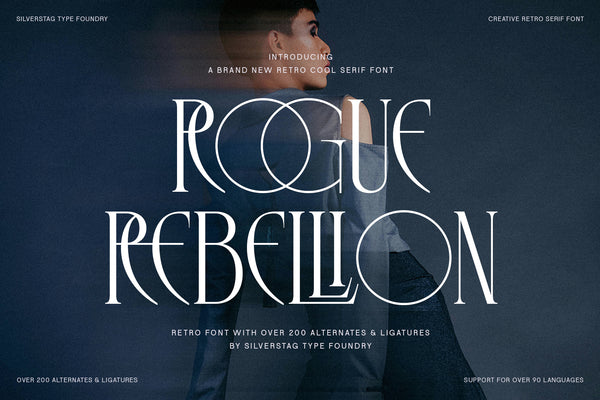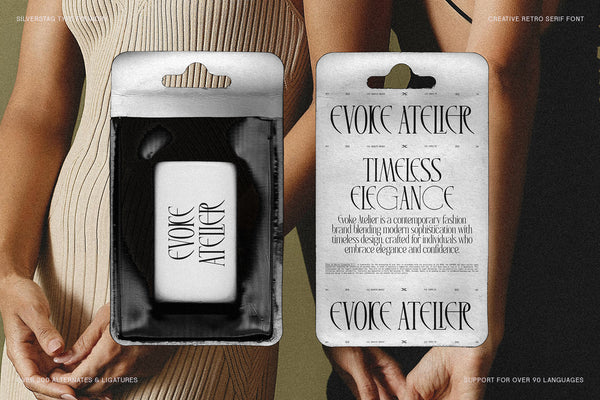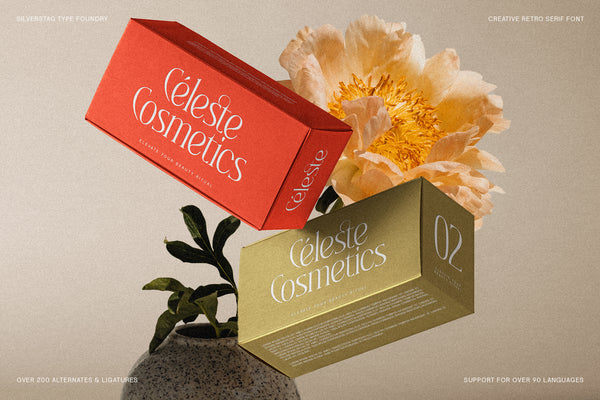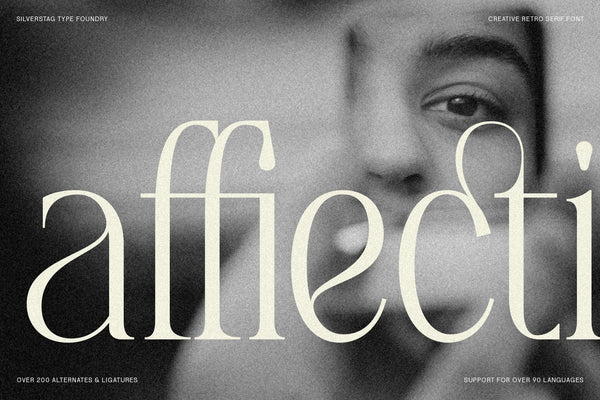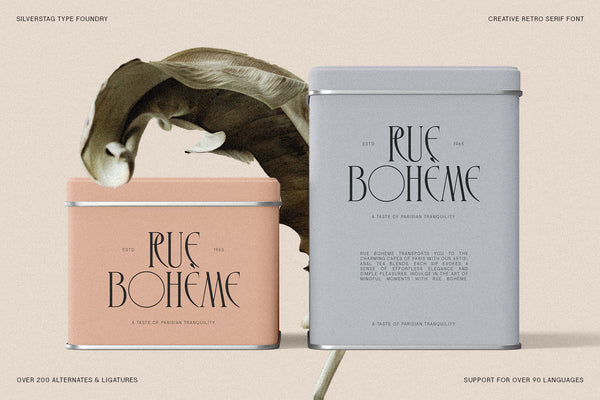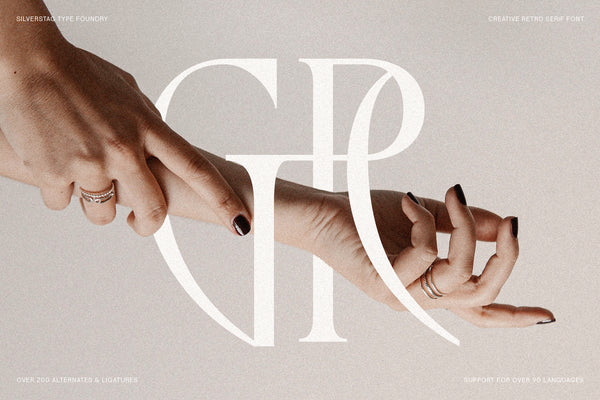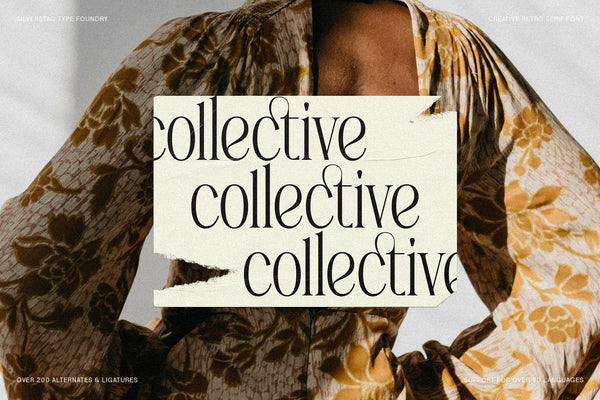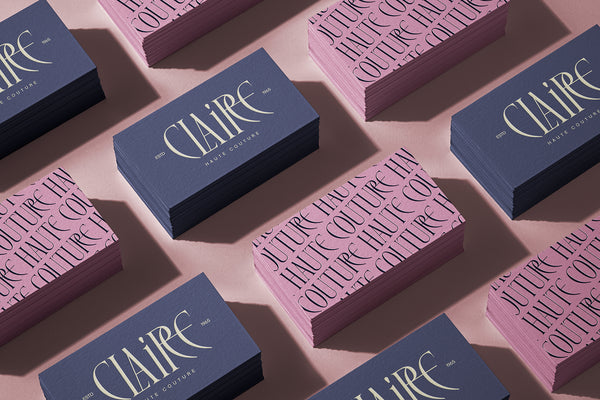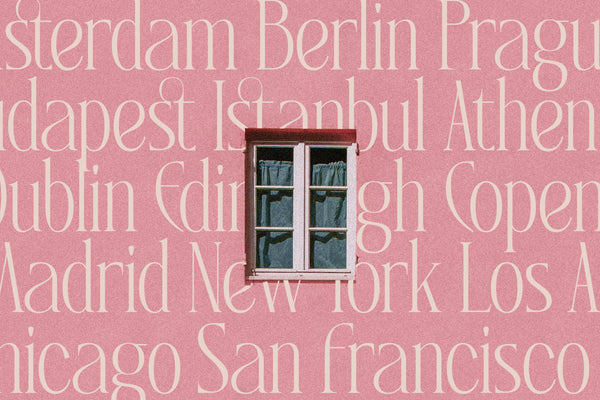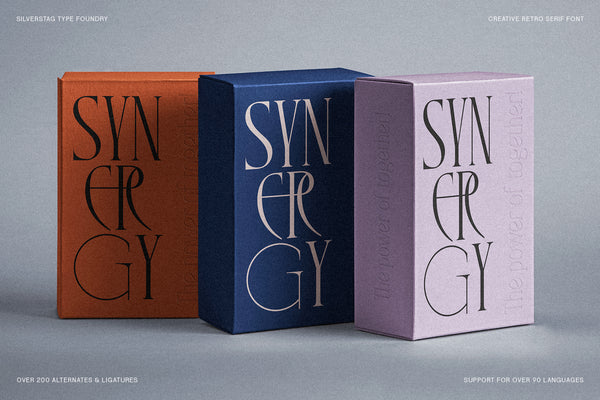
SLTF Rogue Rebellion is a bold and elegant serif typeface that merges classic refinement with rebellious flair. Inspired by vintage typography and reimagined for modern creatives, this font is perfect for fashion-forward branding, artistic packaging, high-end editorial design, and bold visual storytelling.
With over 200 ligatures and alternates, Rogue Rebellion offers expressive typographic customization, allowing you to craft standout logos, magazine titles, and product labels that feel truly unique. Its flowing lowercase letters bring softness and rhythm, while the sharp serifs add confidence and poise.
Designed for global reach, Rogue Rebellion supports 90+ languages, making it ideal for international brands and multilingual projects. It’s a typeface that doesn’t just follow trends—it defines them.